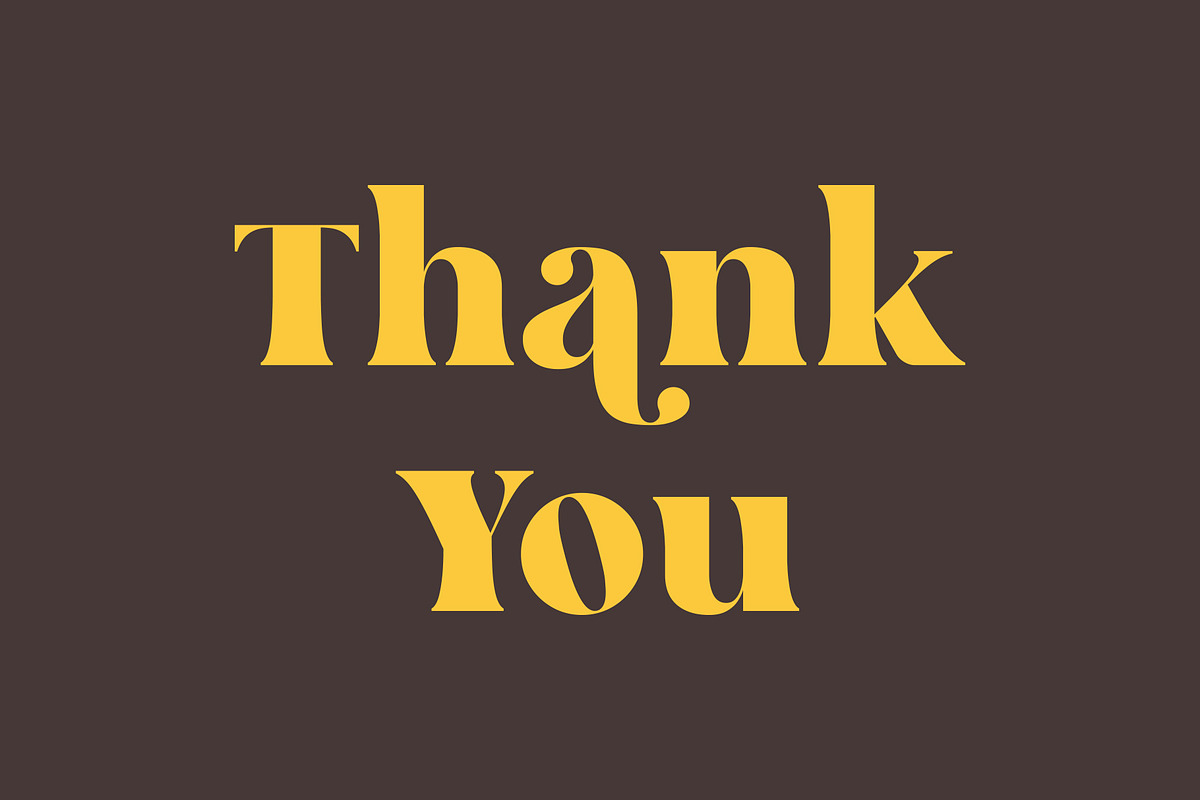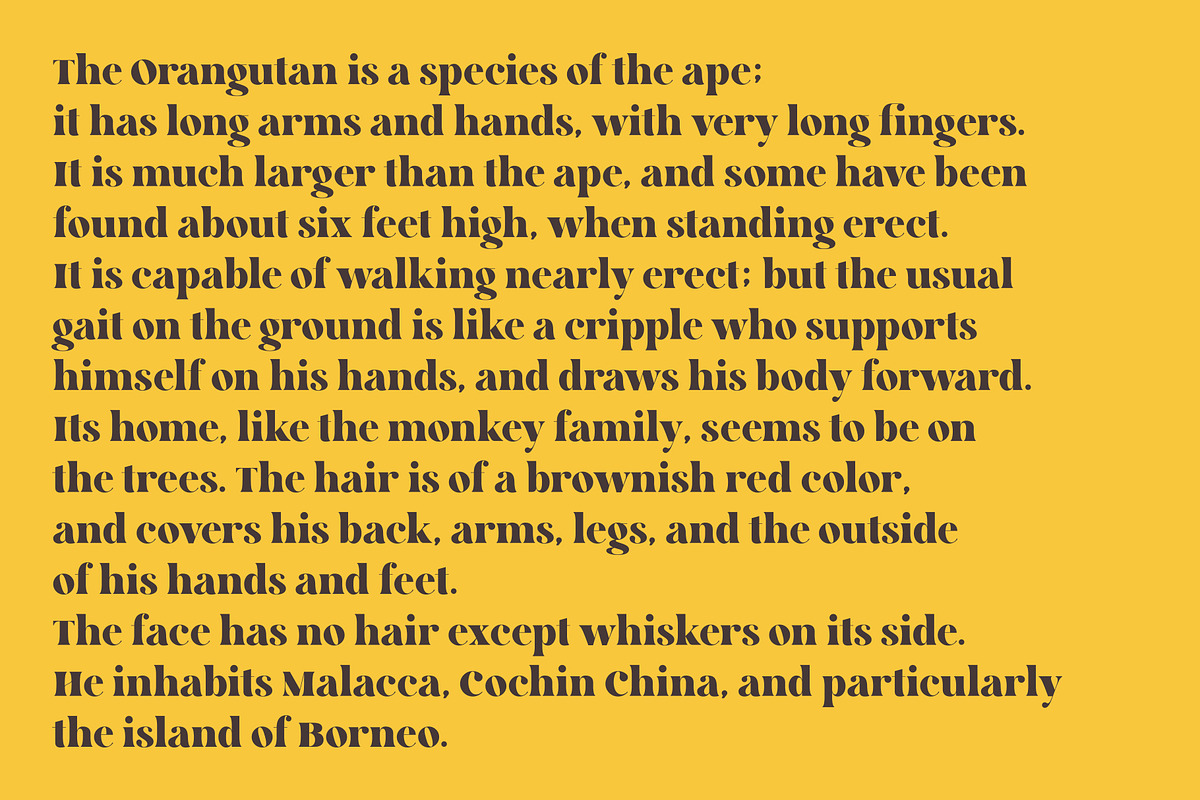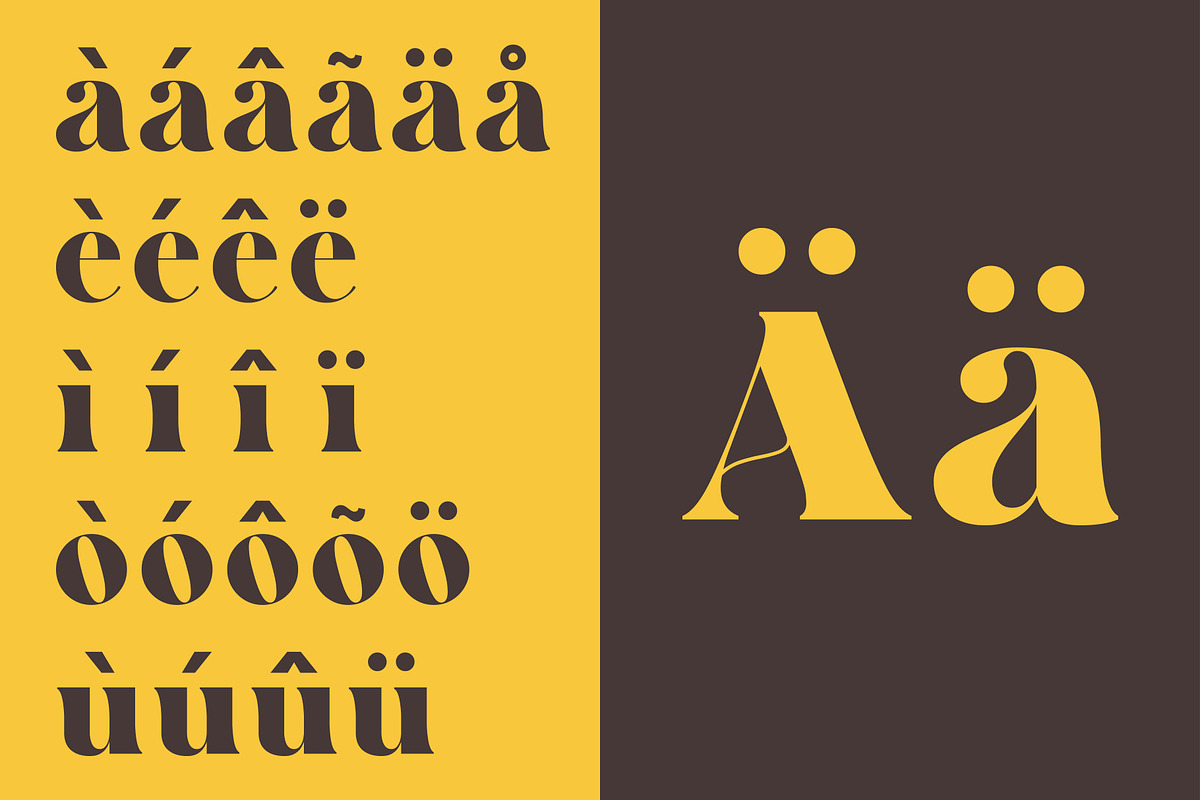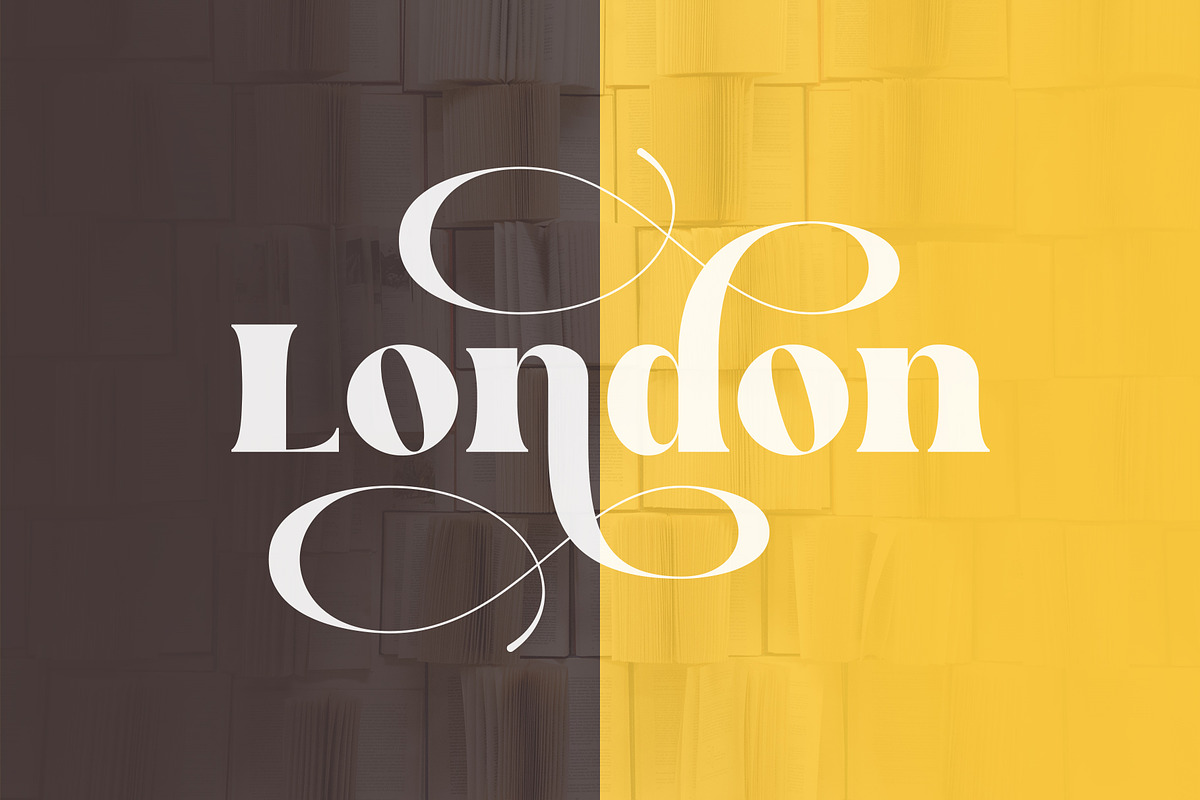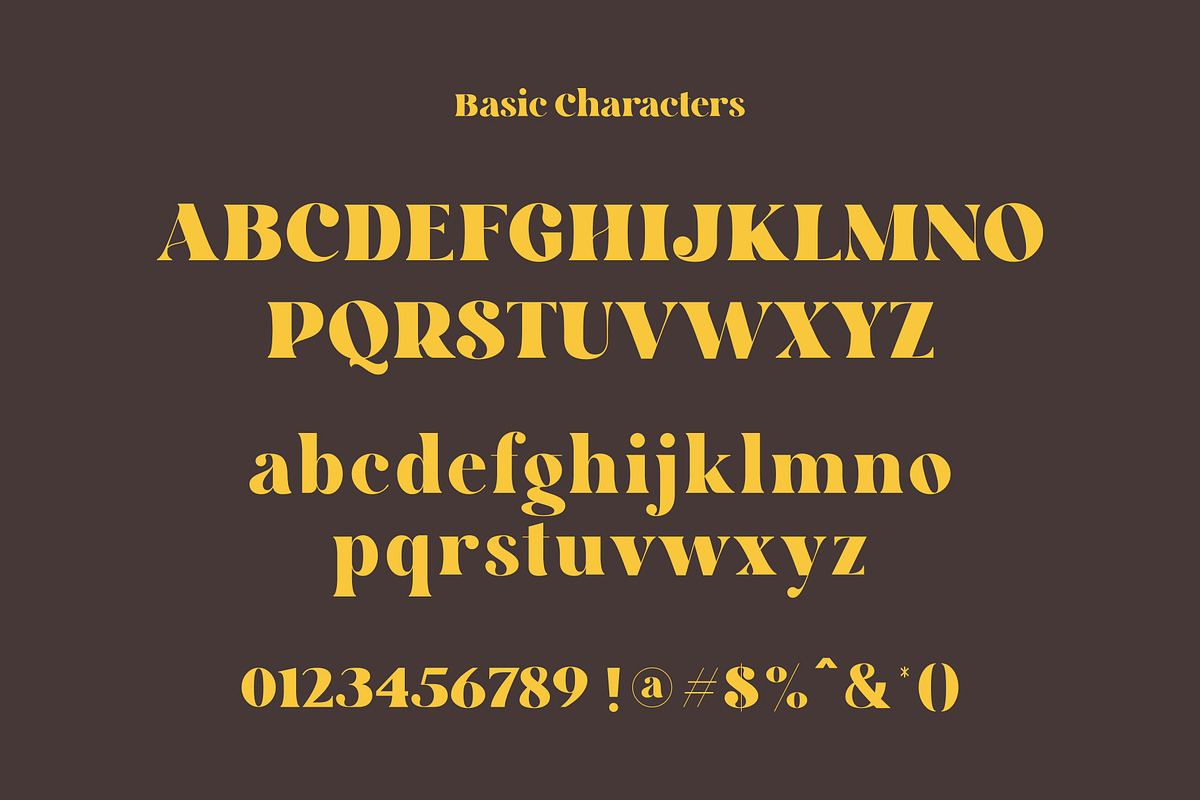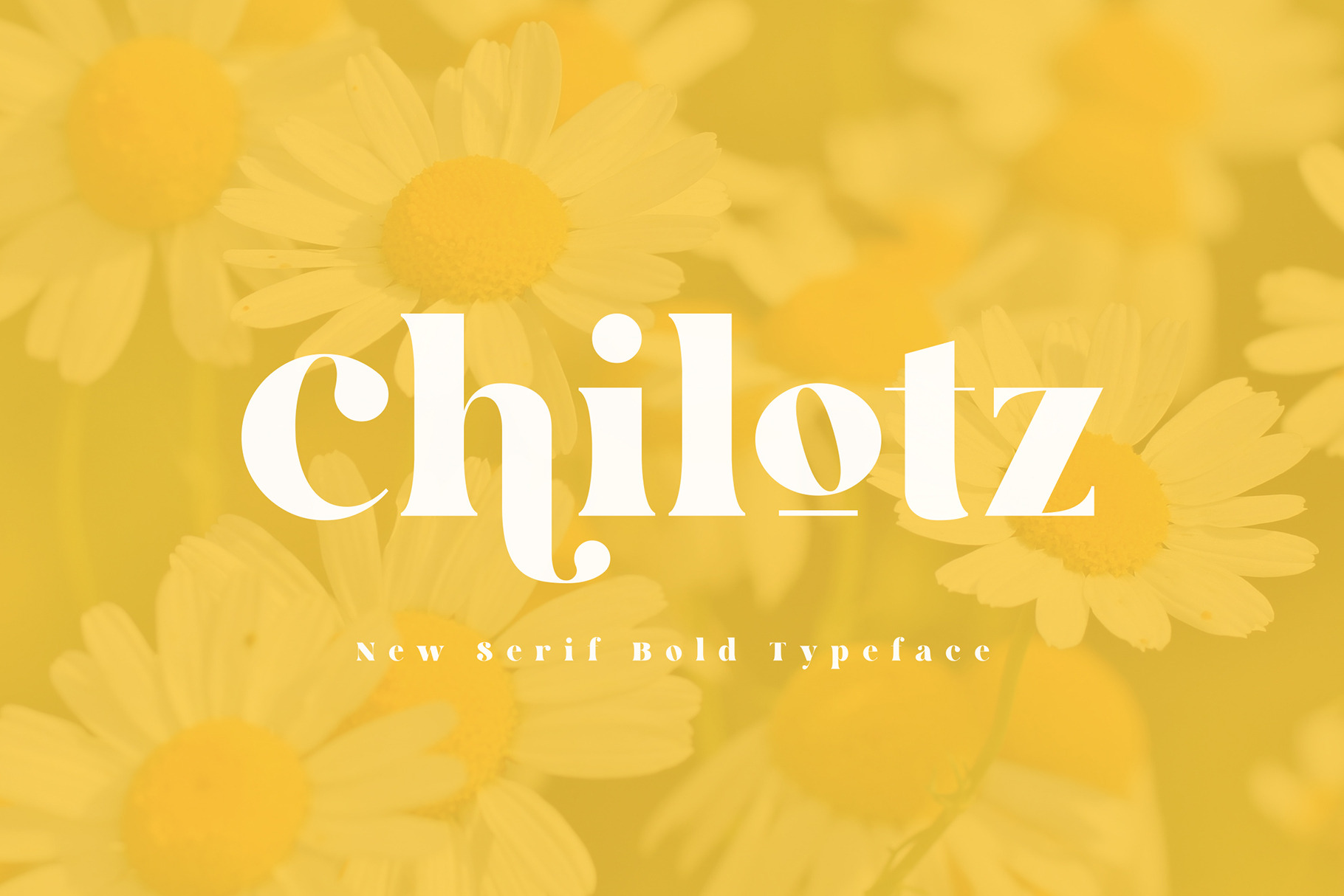
Chilotz | Serif Bold typeface
Chilotz | it's a thin bold serif font with alternate characters it's make perfect to create Elegant Design, Modern, Vintage, Retro and more. So Choice any Glyphs and create the awesome typography and design use this.